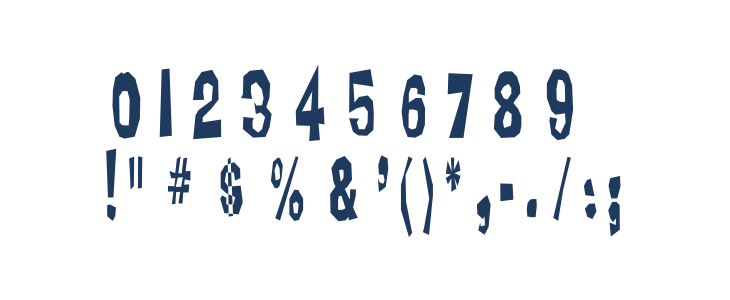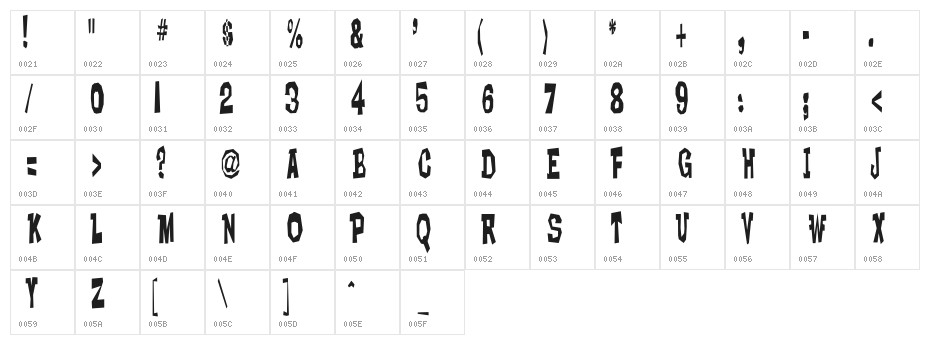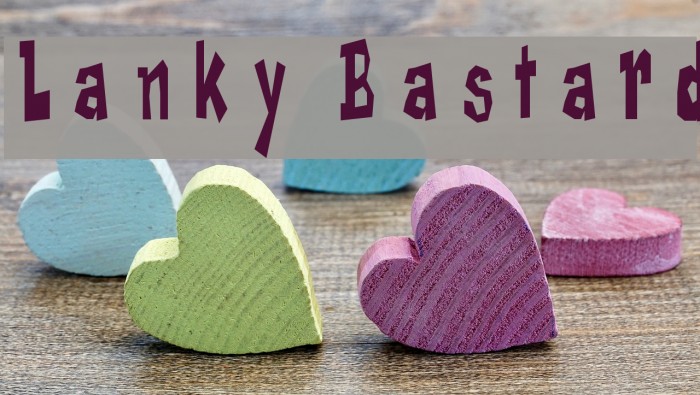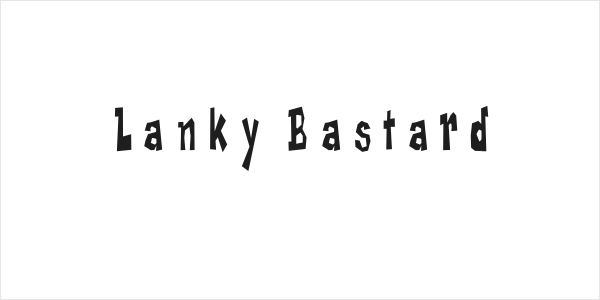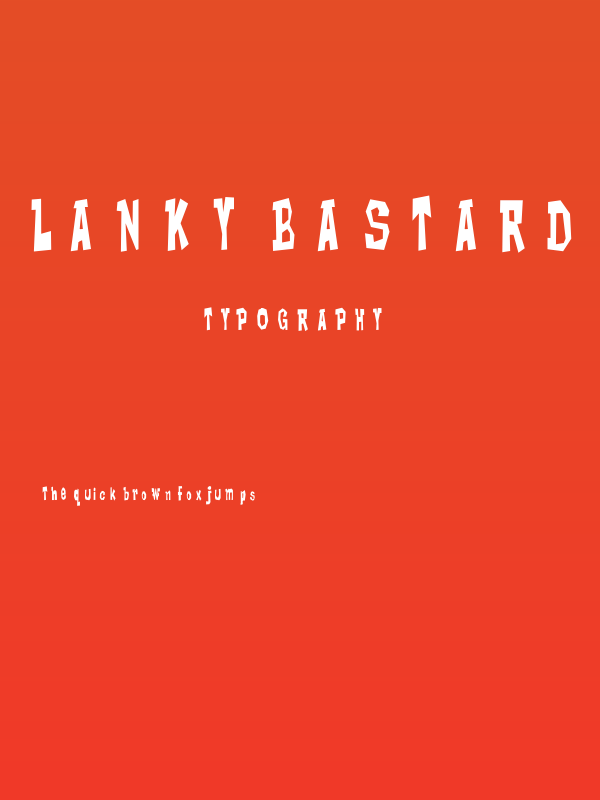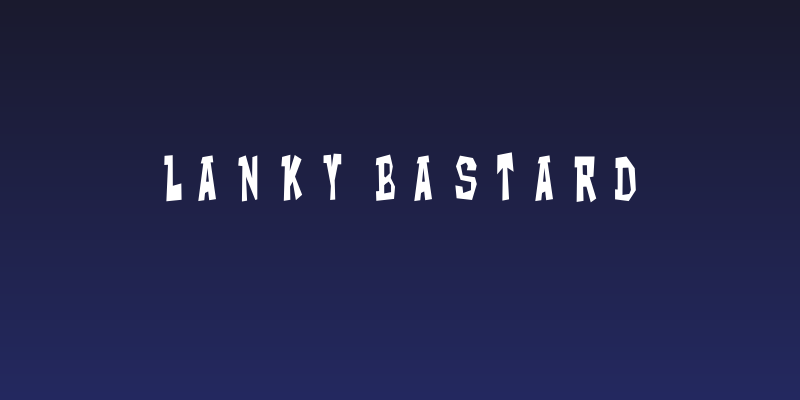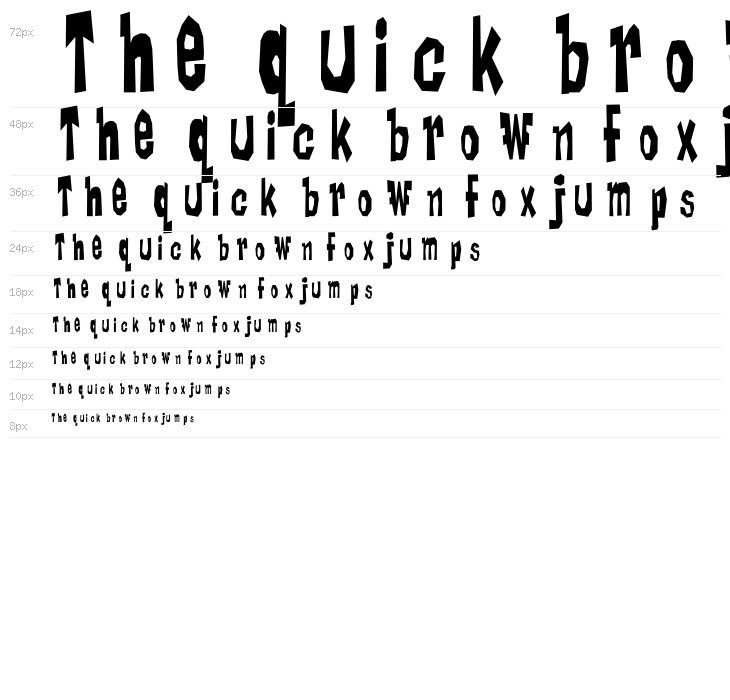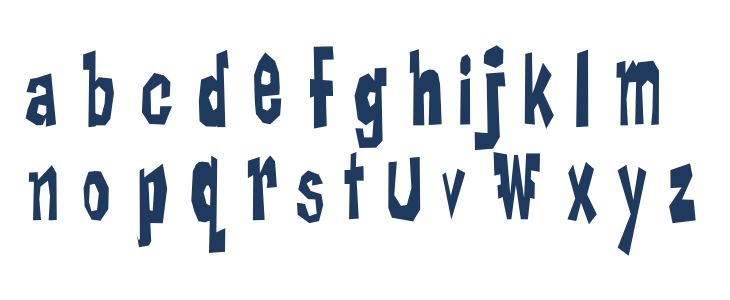
Lanky Bastard Font
Lanky Bastard Description
This font features a bold and striking design with a distinctly irregular and jagged appearance. Each character is uniquely shaped, giving the font a dynamic and edgy feel. The uppercase and lowercase letters maintain a consistent style, with sharp angles and uneven edges that create a sense of movement and energy. The numbers and special characters follow the same aesthetic, ensuring a cohesive look across all text. This font's unconventional style makes it stand out, perfect for projects that require a bold statement.
| Overall Style | Modern, Edgy |
| Proposed Projects | Ideal for posters, album covers, branding for edgy or alternative products, and any design needing a bold, unconventional look. |